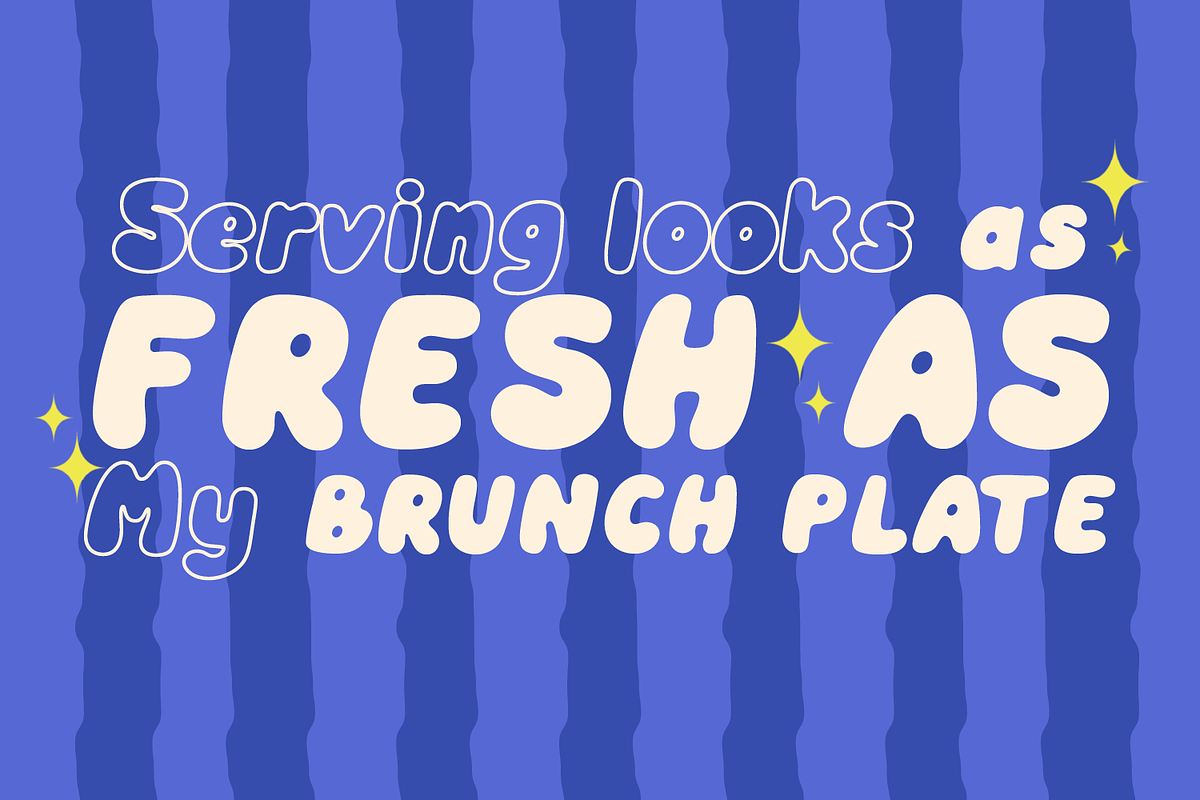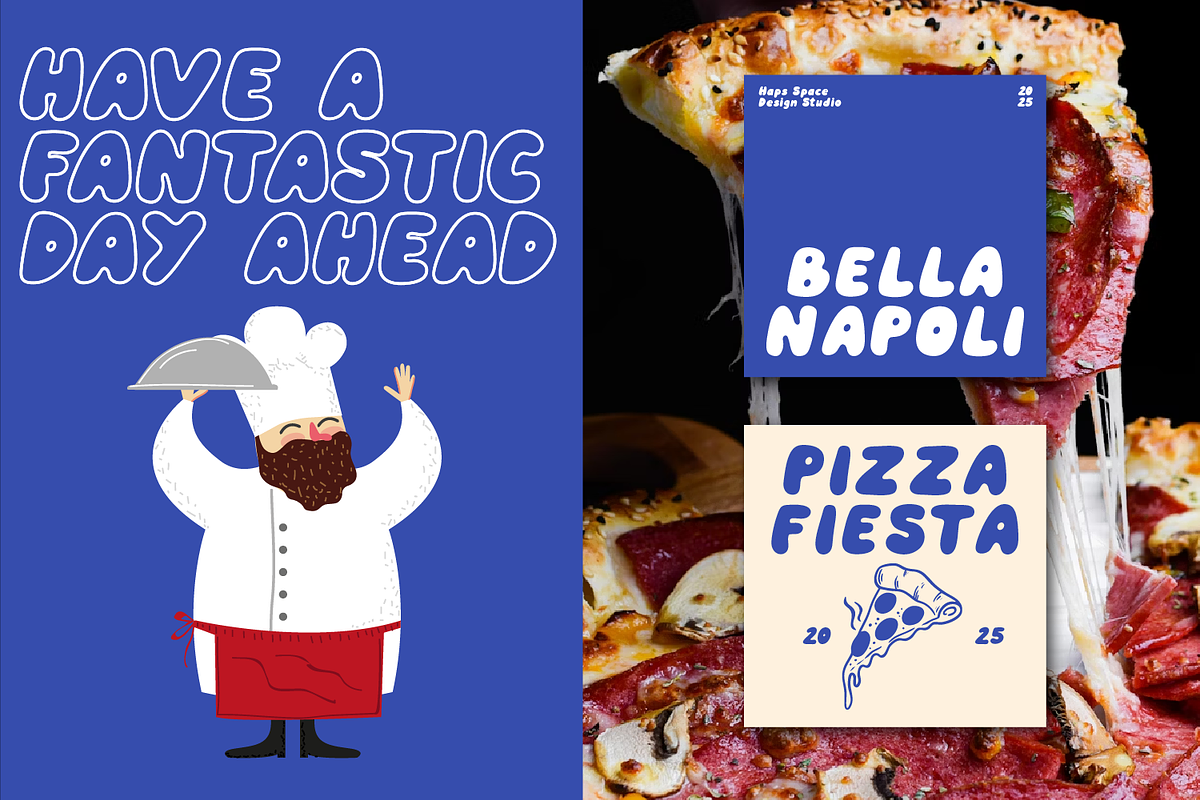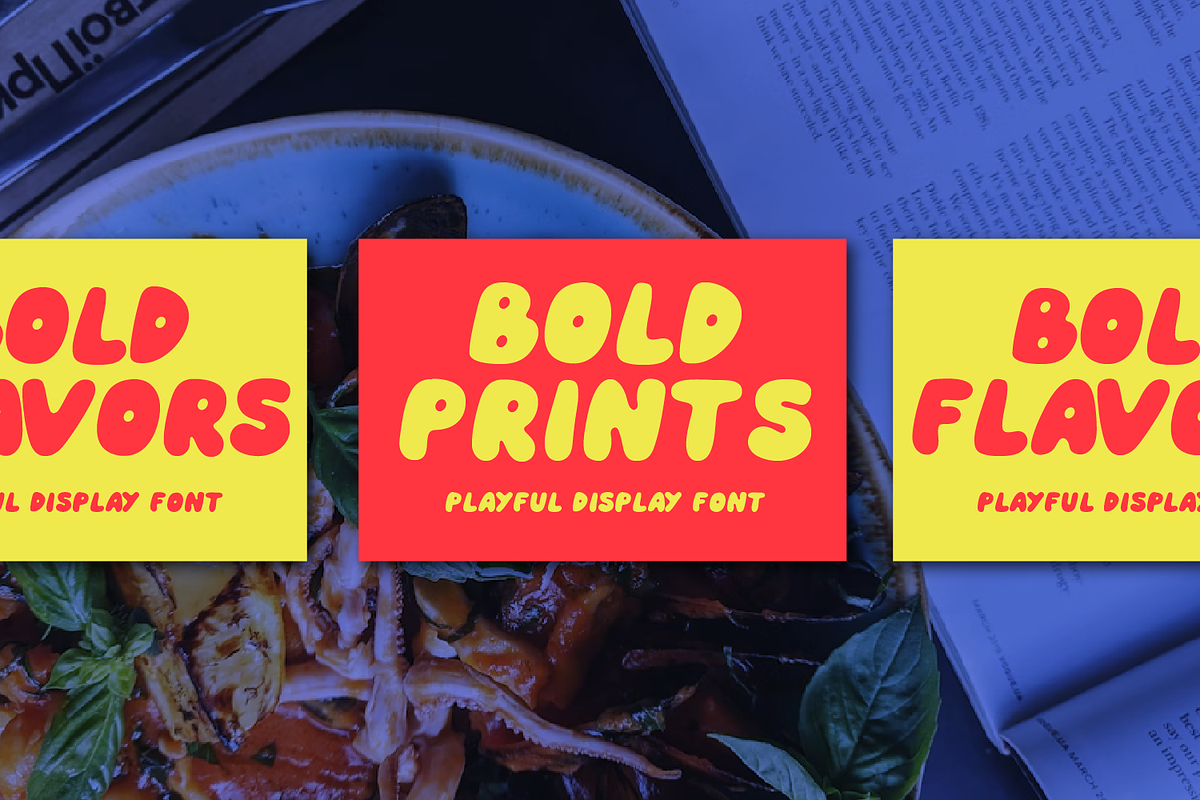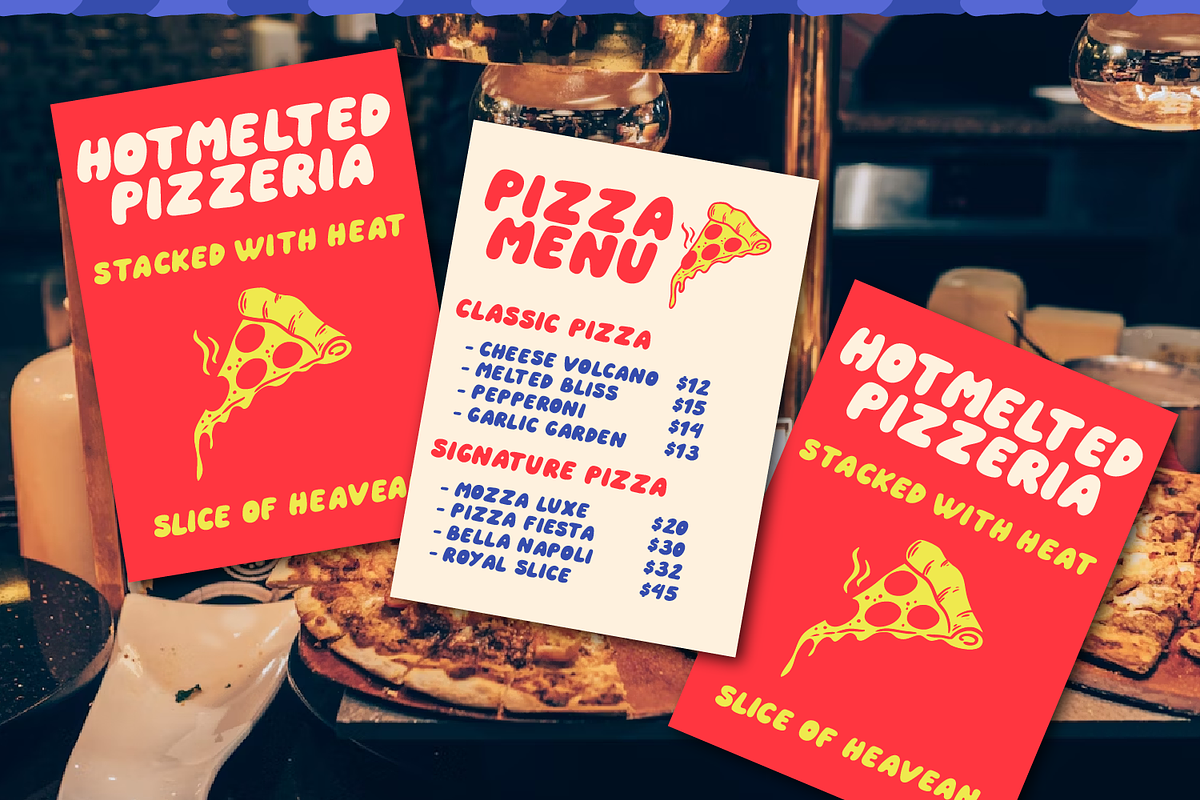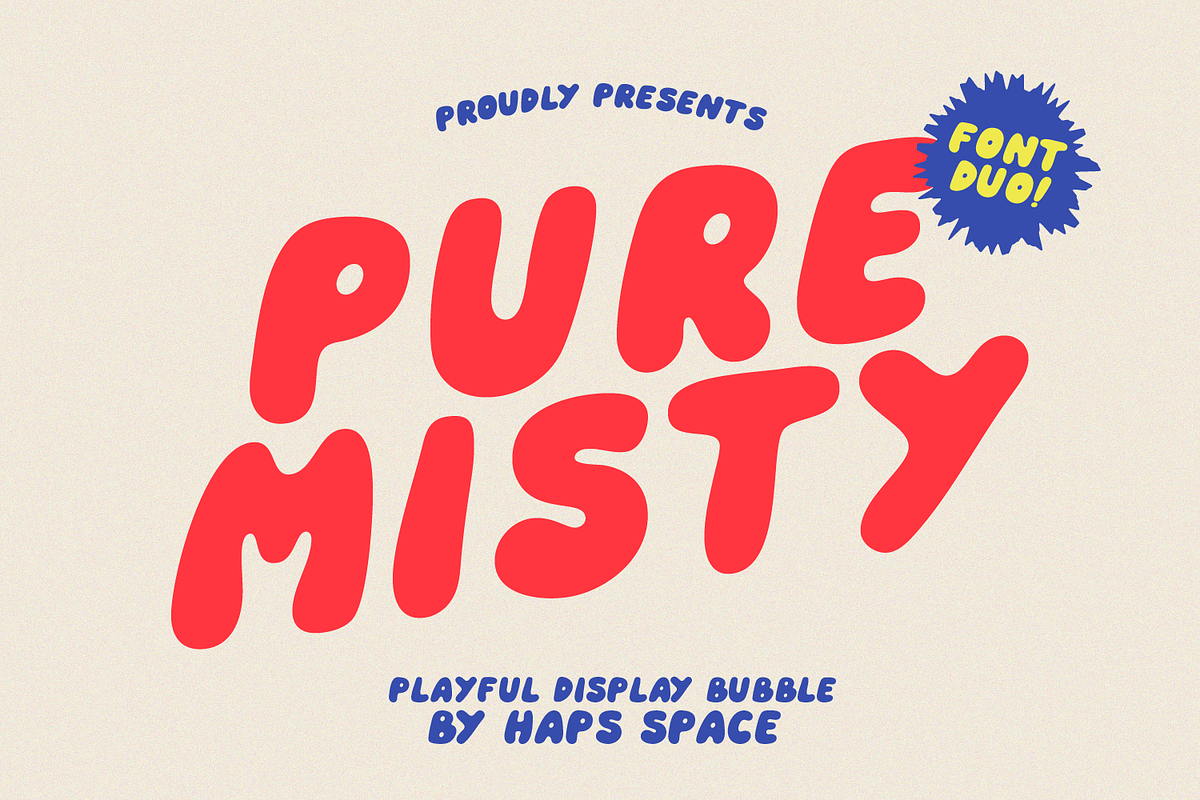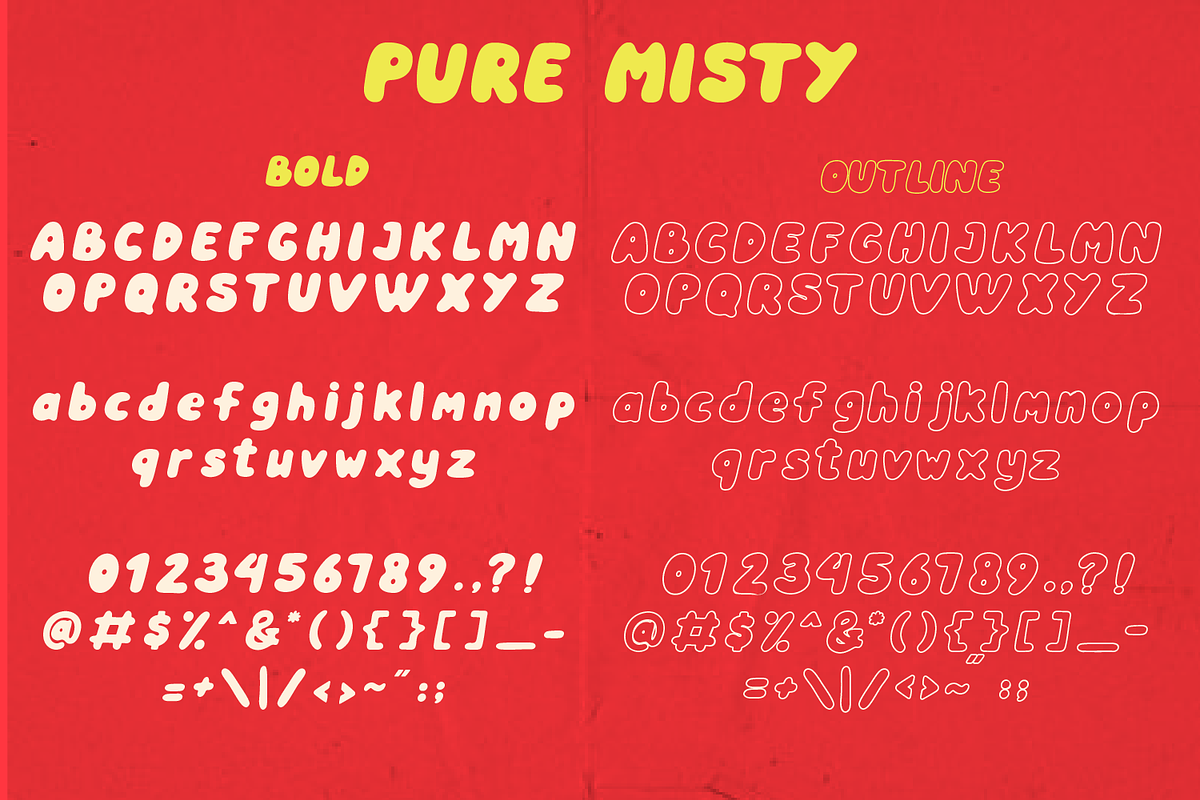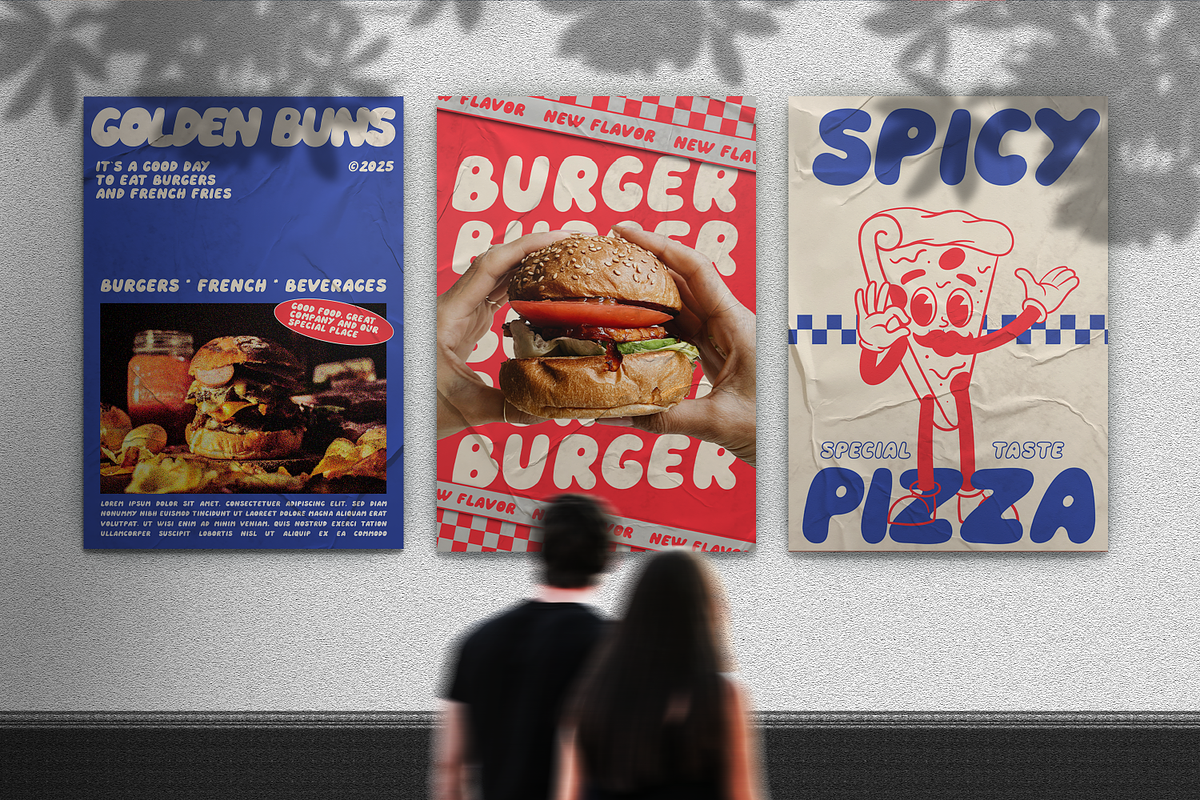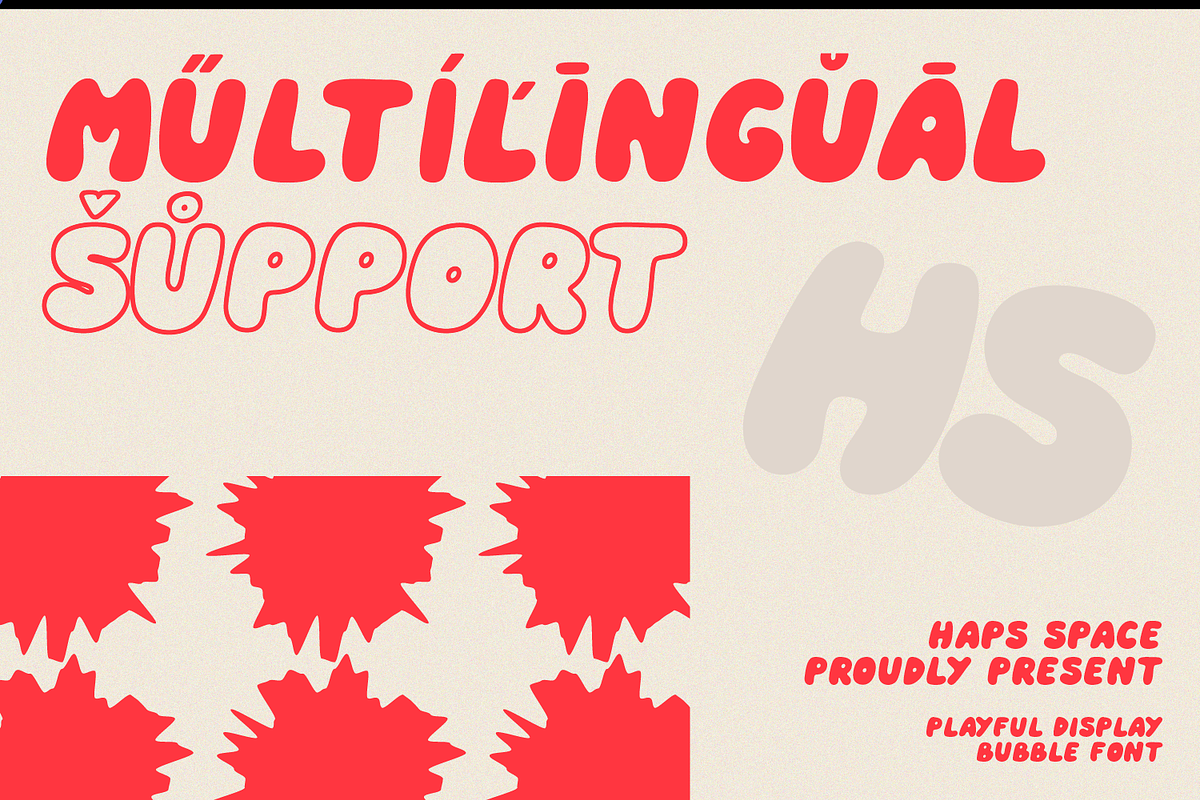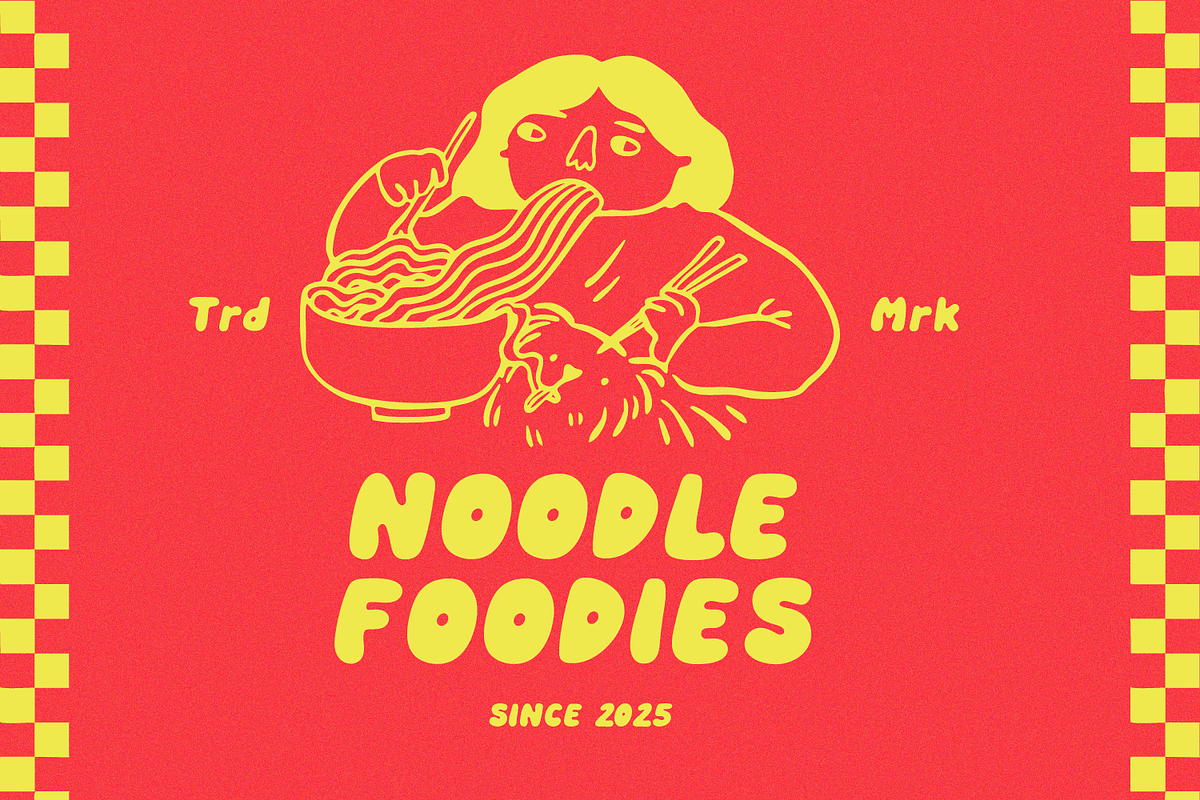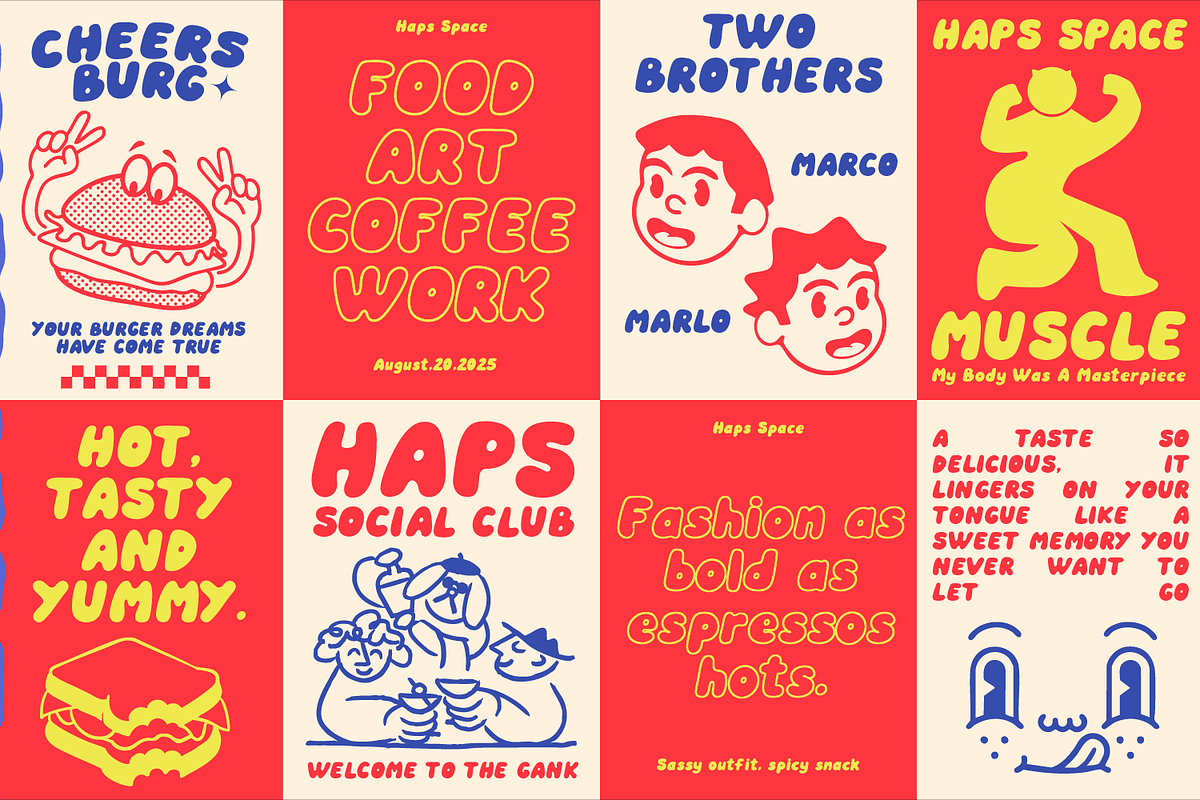
Pure Misty Playful Display
Say hello to PURE MISTY – a fun and playful display font duo with a bubbly personality! Designed with soft curves and a bold, rounded style, PURE MISTY brings joy and charm to any design project. Perfect for children’s books, posters, packaging, social media, merchandise, invitations, and branding, this typeface duo makes your text pop with a friendly, approachable vibe.
With its playful bubble feel and clean readability, PURE MISTY is your go-to choice for projects that need a touch of fun, creativity, and positive energy.
- Unique Letterforms